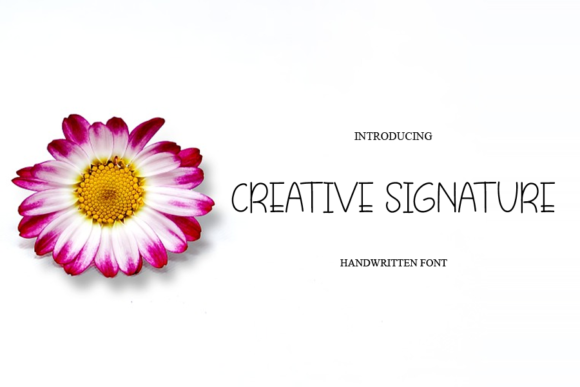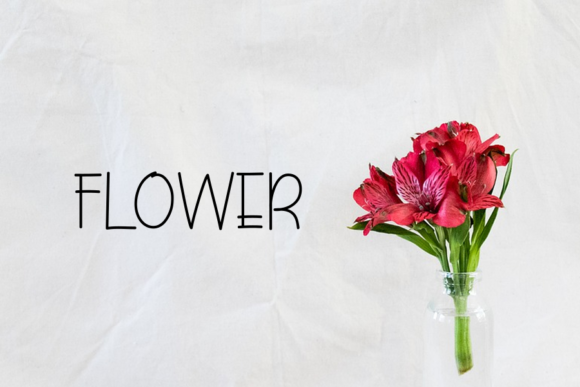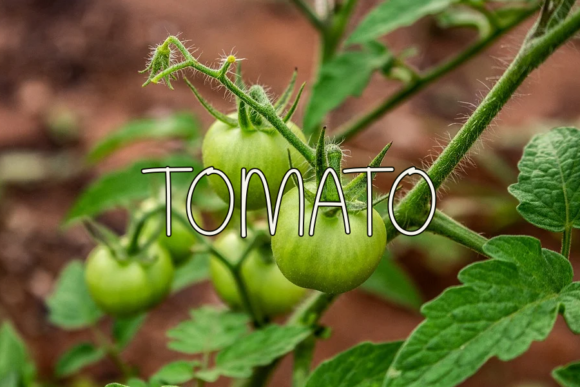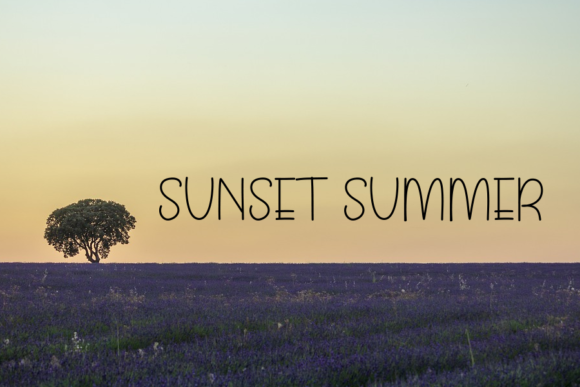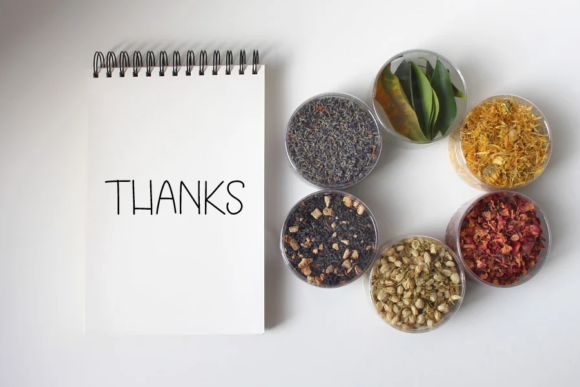
Creative Signature Font
Creative Signature is a simple, thin lettered and informal handwritten font. Its authentic look and feel will add a personal and realistic feel to your designs.